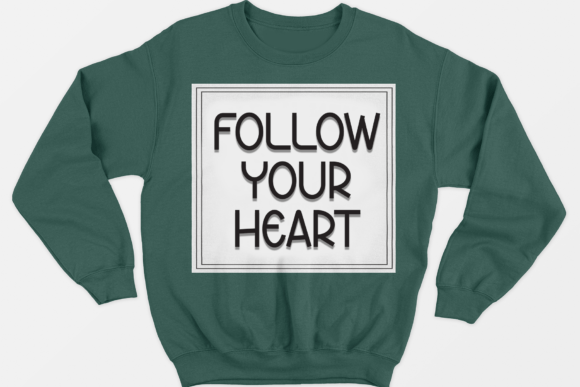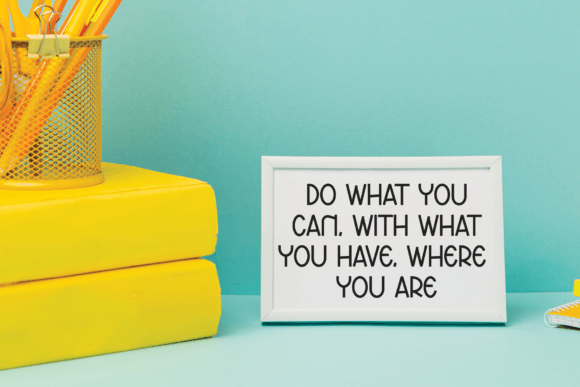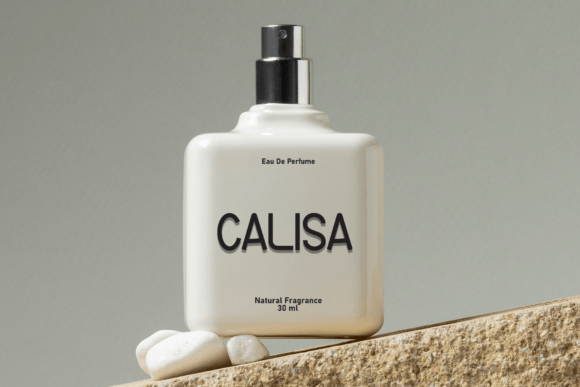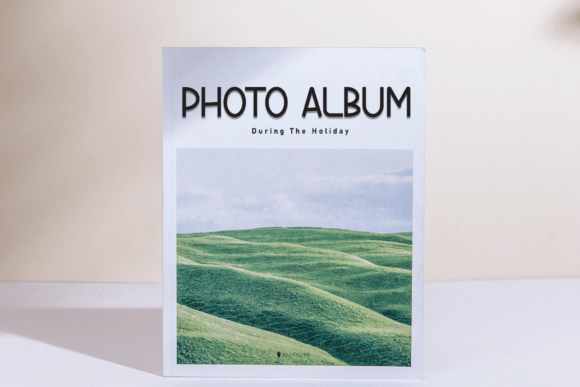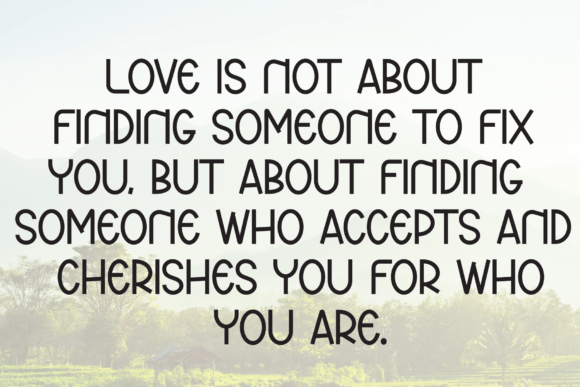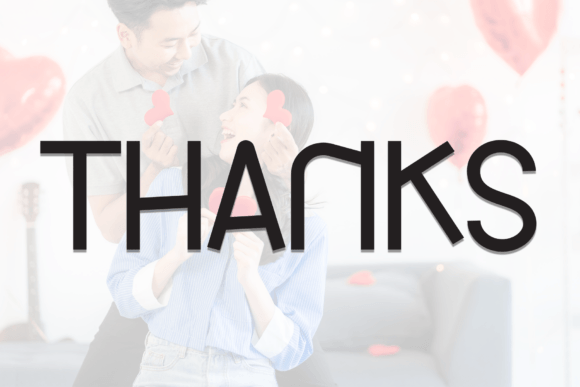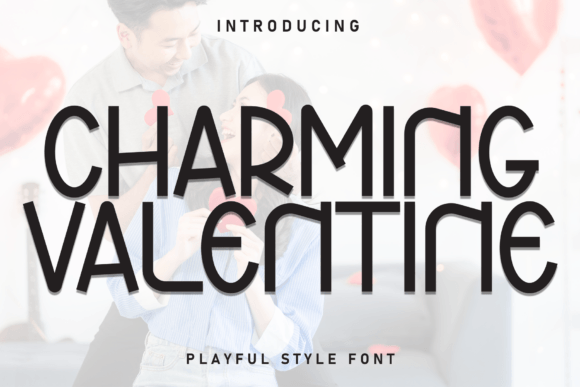
Charming Valentine Font: Add a Touch of Whimsy to Your Designs
Are you looking for a font that can add a dash of joy and playfulness to your designs? Look no further than Charming Valentine, a delightful and amiable handwritten display font. With its approachable style and charming personality, this font is perfect for designers and crafters who want to create beautiful and eye-catching designs that exude warmth and whimsy.
What Makes Charming Valentine Font So Special?
Charming Valentine Font is a one-of-a-kind handwritten display font that is designed to bring a touch of elegance and playfulness to your designs. Its unique and distinctive style makes it perfect for a wide range of design projects, from wedding invitations and greeting cards to posters and social media graphics. The font’s playful charm and approachable style make it easy to read and understand, making it perfect for designs that require a personal touch.
Perfect for Wedding Invitations and Love-Themed Designs
Charming Valentine Font is an ideal choice for wedding invitations, engagement announcements, and other love-themed designs. The font’s romantic and whimsical style makes it perfect for couples who want to add a touch of elegance and sophistication to their wedding stationery. Whether you’re designing a formal wedding invitation or a casual save-the-date card, Charming Valentine Font is sure to impress.
Great for Crafting and DIY Projects
Charming Valentine Font is not just limited to digital designs. It’s also perfect for crafters and DIY enthusiasts who want to add a personal touch to their projects. Use the font to create beautiful handmade cards, gift tags, and other paper crafts that are sure to delight. The font’s playful style makes it perfect for a wide range of crafting projects, from scrapbooking and journaling to card making and paper crafting.
Key Features of Charming Valentine Font
- Handwritten display font: Charming Valentine Font is a unique and distinctive handwritten display font that adds a touch of elegance and playfulness to your designs.
- Playful charm: The font’s playful charm and approachable style make it easy to read and understand, making it perfect for designs that require a personal touch.
- Whimsical style: Charming Valentine Font has a whimsical style that makes it perfect for a wide range of design projects, from wedding invitations and greeting cards to posters and social media graphics.
How to Use Charming Valentine Font in Your Designs
- Pair it with other fonts: Charming Valentine Font pairs well with other fonts, such as sans serif fonts and script fonts. Experiment with different font combinations to find the perfect look for your design.
- Use it for headings and titles: Charming Valentine Font is perfect for headings and titles. Use it to add a touch of elegance and playfulness to your design.
- Add embellishments: Consider adding embellishments, such as flowers or hearts, to your design to make it more visually appealing.
Charming Valentine Font is a delightful and amiable handwritten display font that is perfect for designers and crafters who want to add a touch of whimsy to their designs. With its playful charm and approachable style, this font is sure to become a staple in your design library. Whether you’re designing wedding invitations, greeting cards, or other projects, Charming Valentine Font is the perfect choice. So why wait? Fall in love with the inviting personality of this font and let it become a part of your design journey.